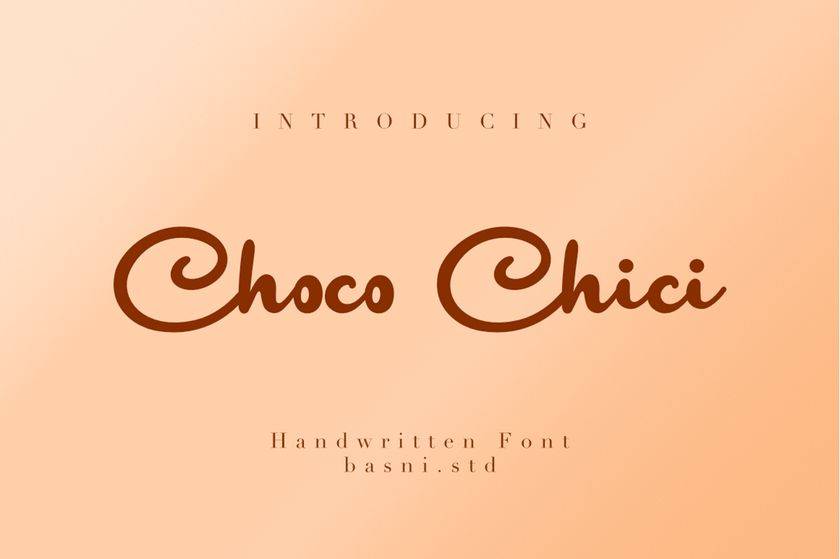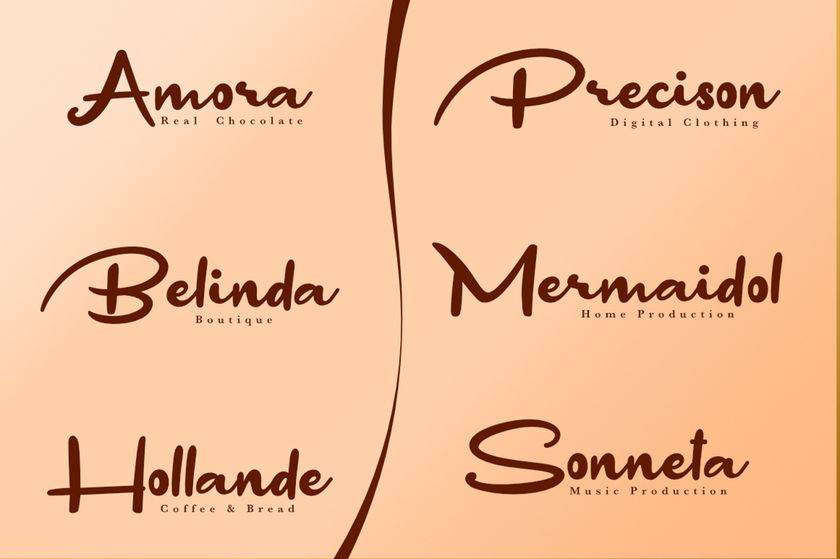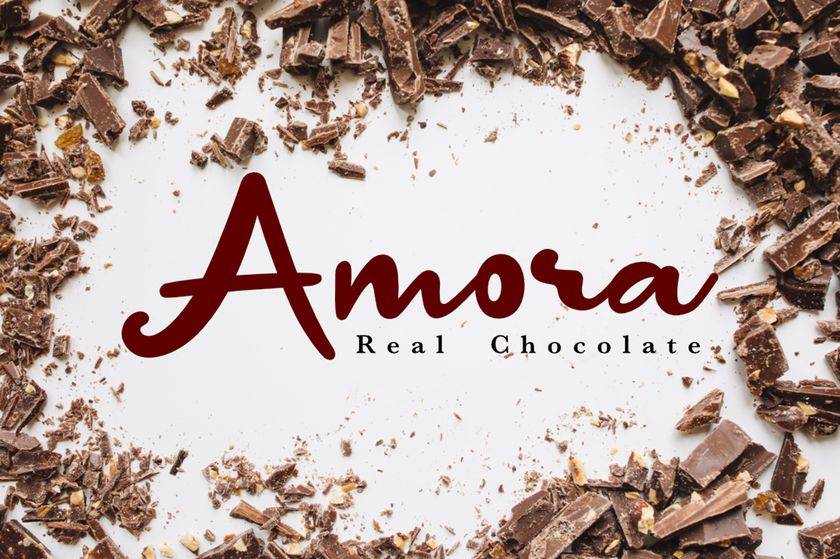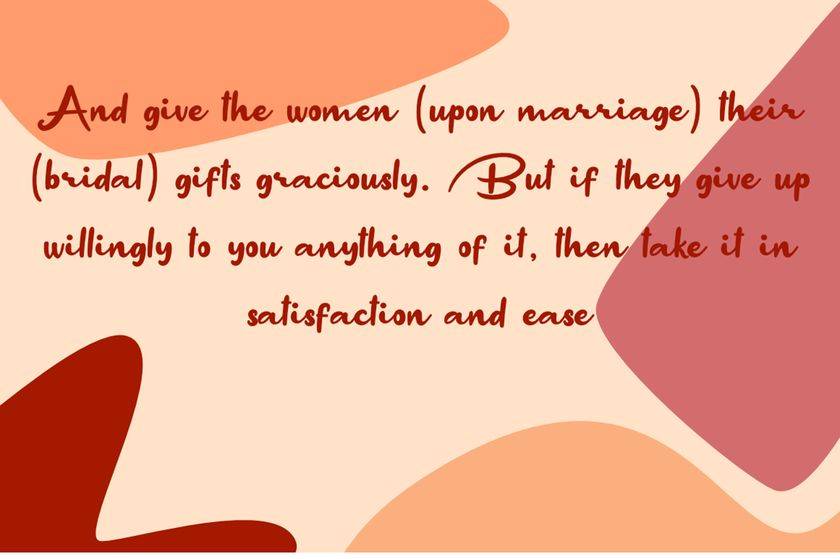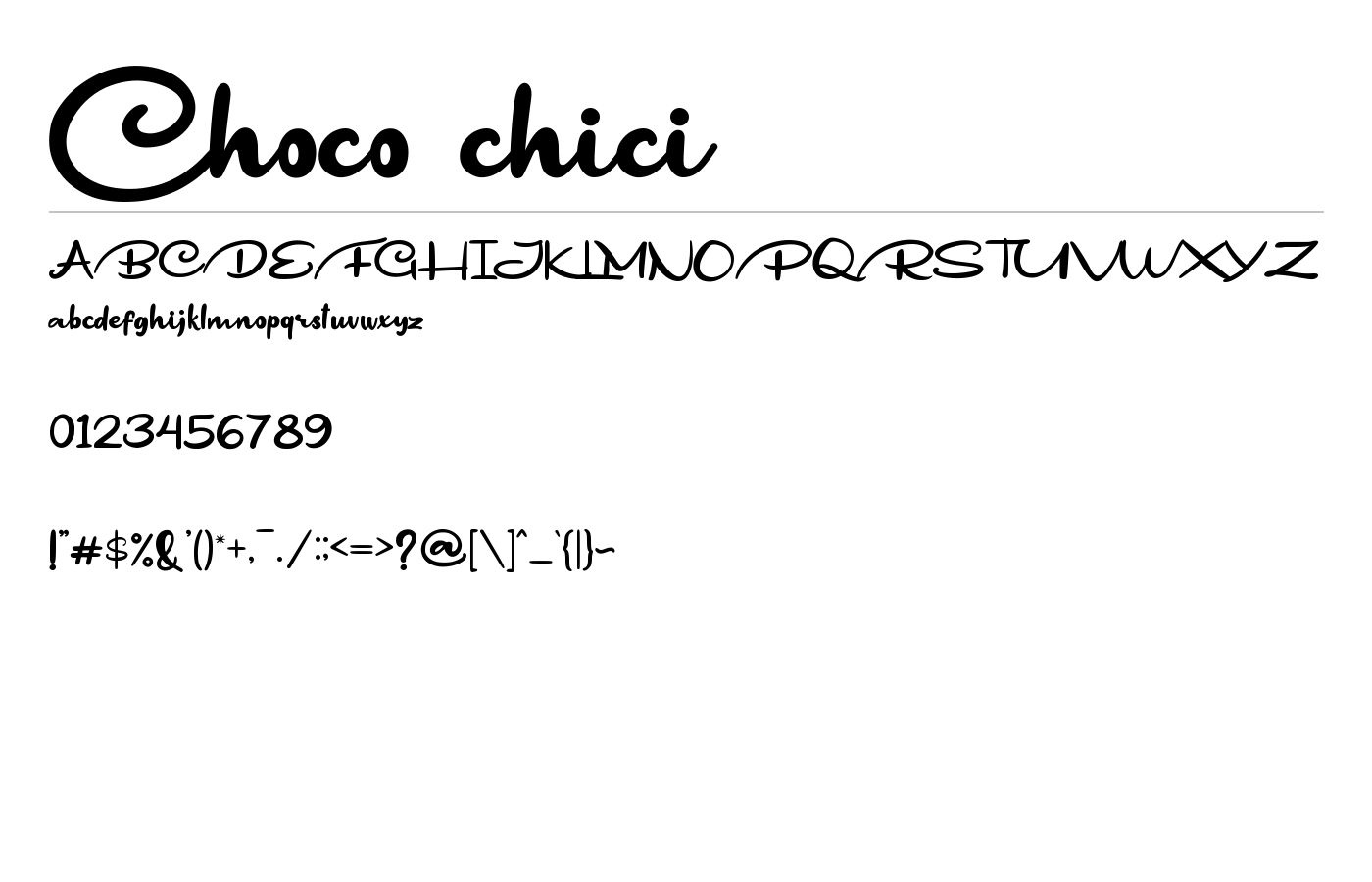
Choco Chici is a playful, handwritten script font with a casual and lively feel, featuring smooth, rounded strokes and a slightly informal bounce in its letterforms. It works well for creative and fun designs such as invitations, branding for lifestyle products, or youthful editorial projects, where an approachable and personal touch is desired. Its clear readability combined with expressive character shapes makes it suitable for both headlines and short text blocks.
Choco Chici Font
About Choco Chici Font